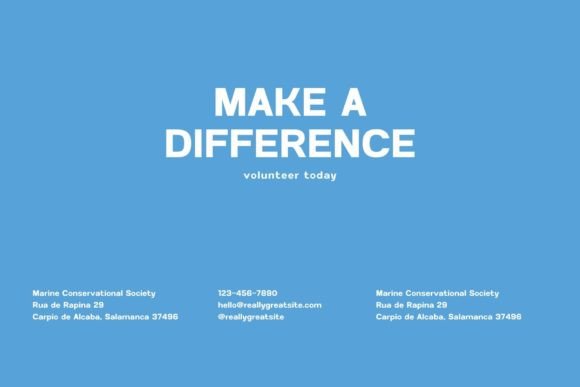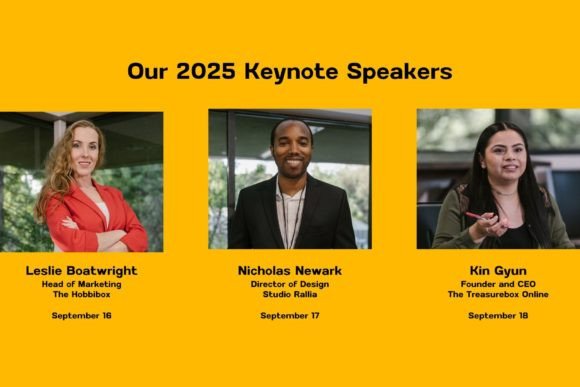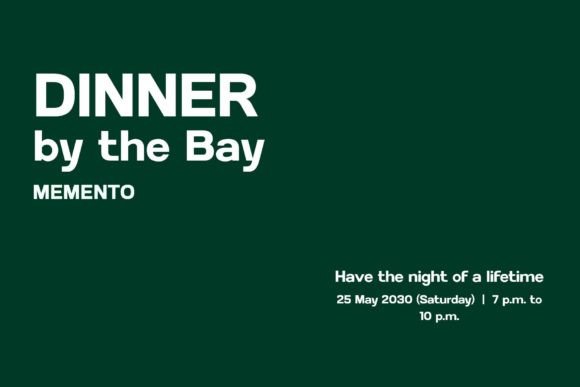
Introduction to Keflyn Font
As a designer, you’ve probably experienced that moment when you’re working on a creative project and everything just falls into place – the colors, the layout, the typography. It’s like magic. But what if I told you there’s a secret ingredient to making that magic happen? Introducing the Keflyn Font, a modern sans-serif font that’s about to become your new best friend.
With its sleek lines and contemporary aesthetic, Keflyn Font brings a touch of sophistication to your design projects. Whether you’re working on a minimalist branding project or a clean, professional layout, this font ensures a timeless and versatile typographic solution. And the best part? It’s free to download, making it an invaluable design resource for any creative project.
What sets Keflyn Font apart from other fonts is its high quality and versatility. From a transparent background to a clean and crisp look, this font is perfect for designers who want to elevate their visual identity without breaking the bank.
Key Features of Keflyn Font
- High-quality design resource ideal for creative projects, available for free download with transparent background.
- Features a unique, modern design aesthetic, perfect for use in logos, branding, and other creative applications.
Honest Review: Keflyn Font
As a designer, I’m always on the lookout for high-quality design resources to elevate my creative projects. Recently, I stumbled upon the Keflyn Font, and I’m excited to share my honest review.
- ✨ High-quality design: The Keflyn Font boasts a crisp, modern aesthetic that’s perfect for a variety of design projects.
- ✨ Transparent background: The font’s transparent background makes it easy to work with, allowing for seamless integration into any design.
- ⚠️ Limited language support: Unfortunately, the Keflyn Font only supports a limited number of languages, which may be a drawback for some designers.
- ⚠️ Not ideal for small text: While the font looks great at larger sizes, it may not be the best choice for small text due to its bold, playful design.
Overall, I’m impressed with the Keflyn Font’s high quality and versatility. While it may have some limitations, it’s still a valuable design resource that can add a unique touch to your creative projects. Whether you’re working on a logo, brochure, or website, the Keflyn Font is definitely worth checking out.
Tips for Getting the Most Out of Keflyn Font
Use the Keflyn Font in conjunction with a transparent background to create a seamless design. Experiment with different font sizes and styles to find the perfect combination for your creative project.
The Keflyn Font is ideal for use in logos, branding, and marketing materials. Its high-quality design makes it a versatile design resource for various creative projects.